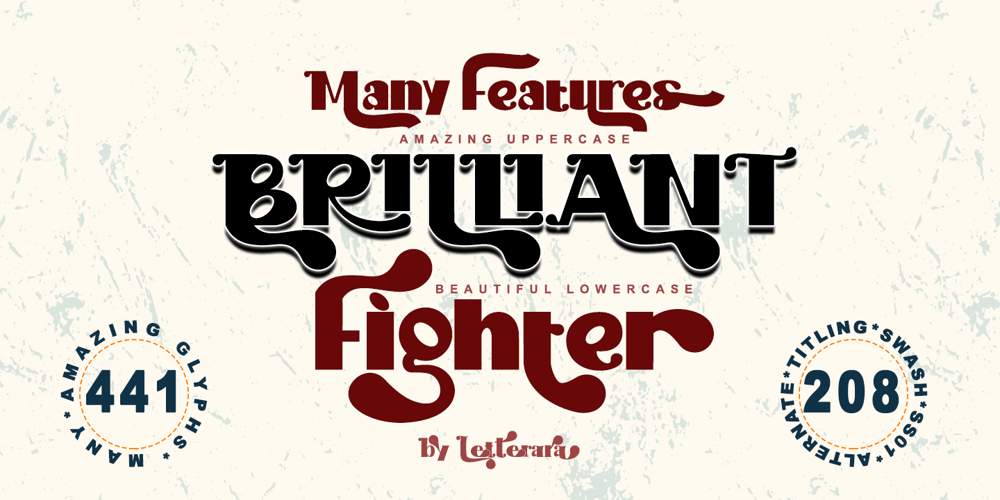
Brilliant Fighter Font Family was designed by Thomas Aradea and published by Letterara. Brilliant Fighter contains 2 styles and family package options. Brilliant Fighter is a gorgeous and unique sans serif font. With its neat and beautiful arrangement of letters, this typeface will look outstanding in both formal and non-formal designs. This font was created with care and given a lot of features to make it look very attractive. Its features will look particularly adept when used in logos, branding, packaging design, and much more. This masterfully designed font is a true must-have. This font is PUA encoded which means you can access all of the glyphs.